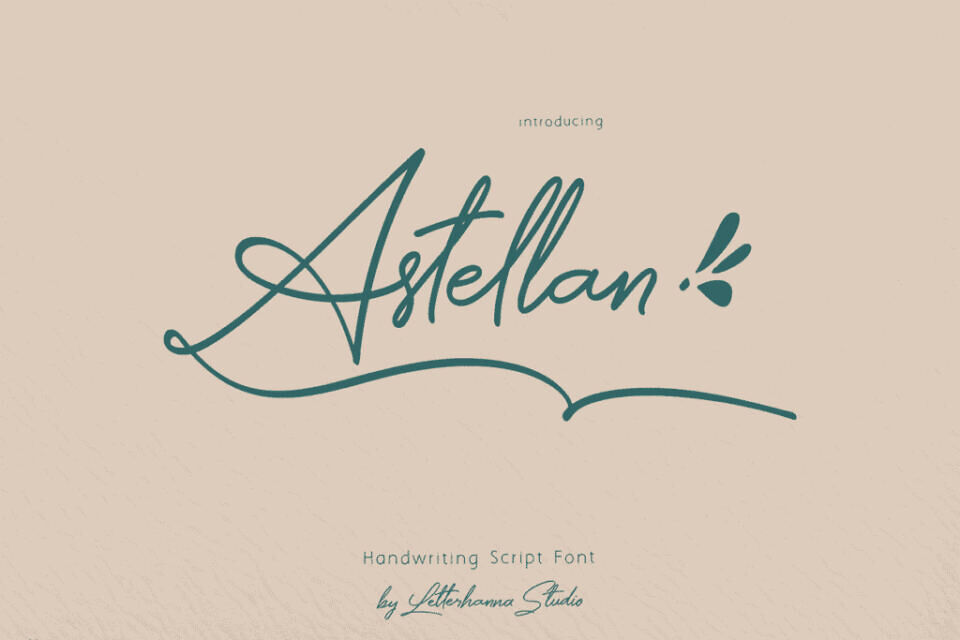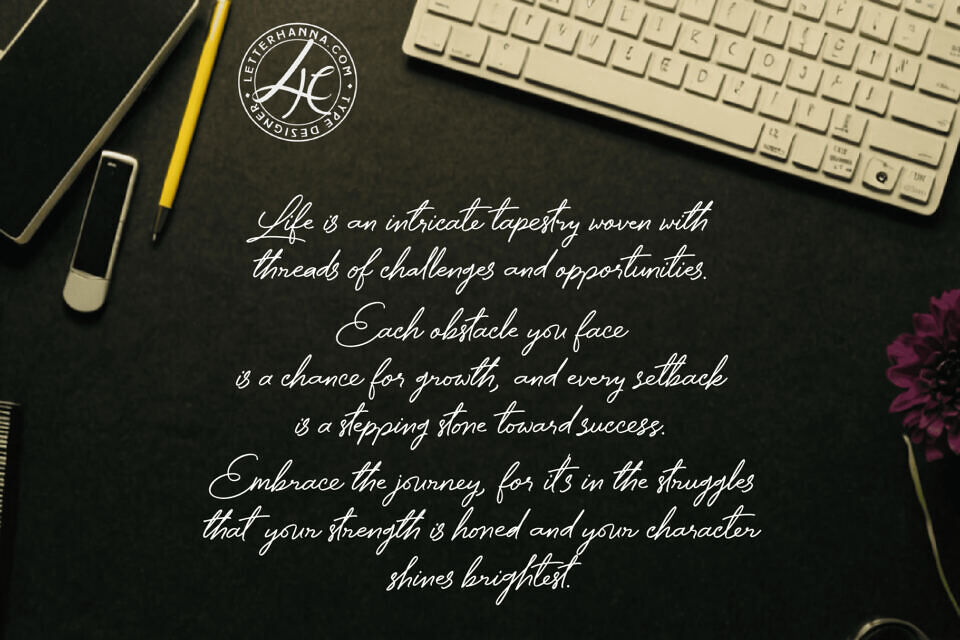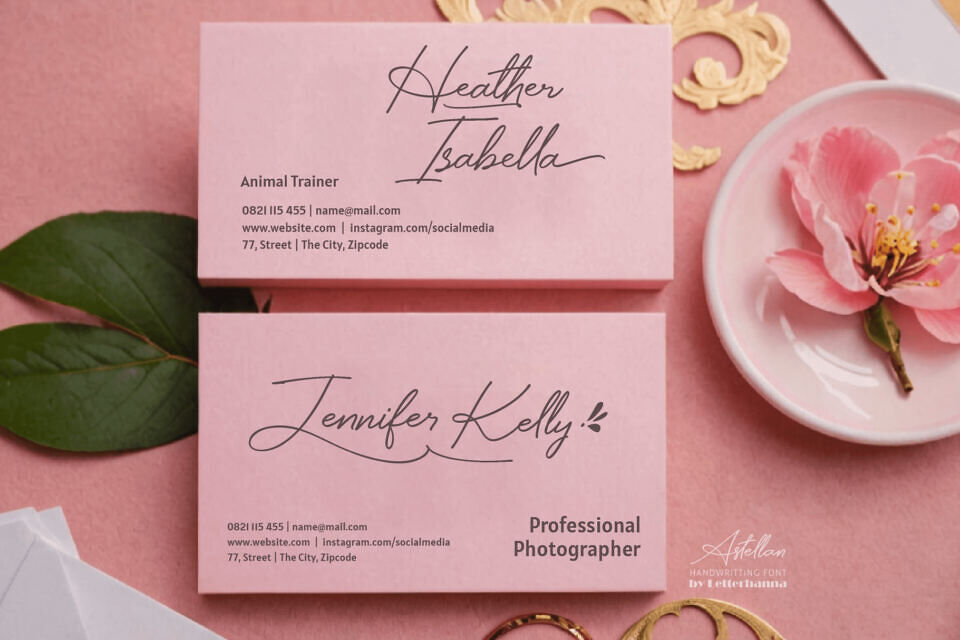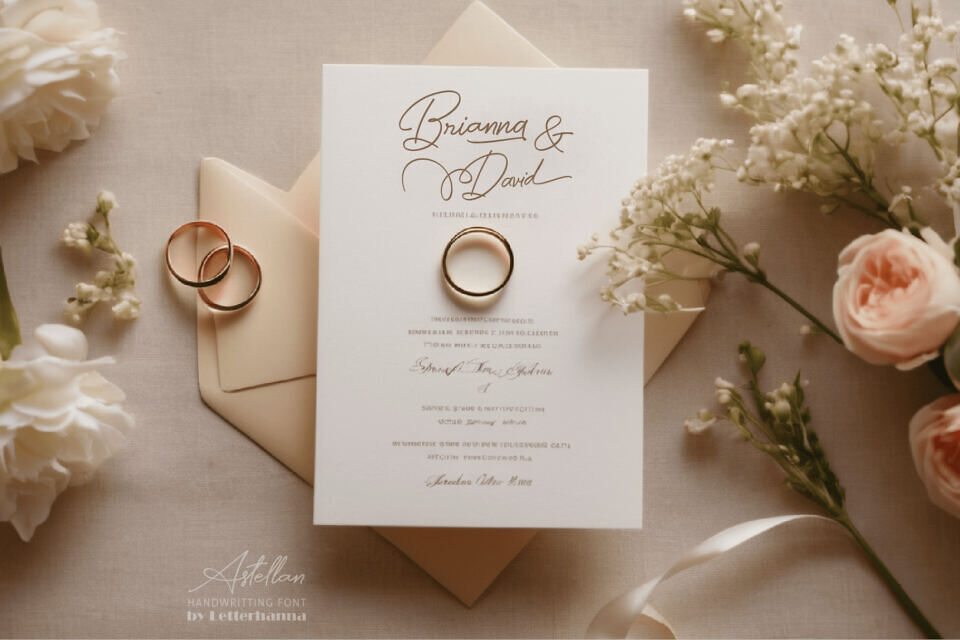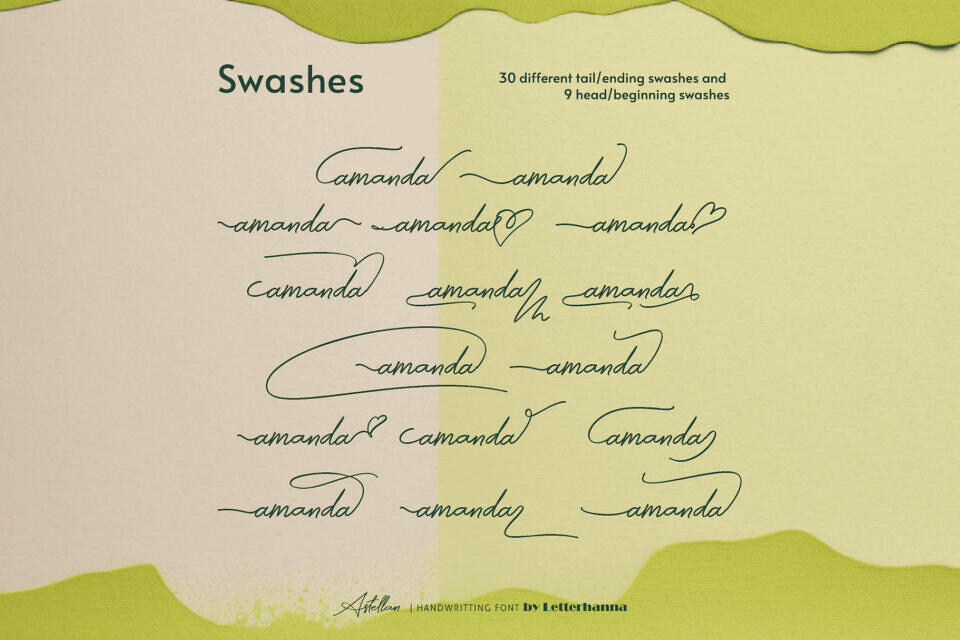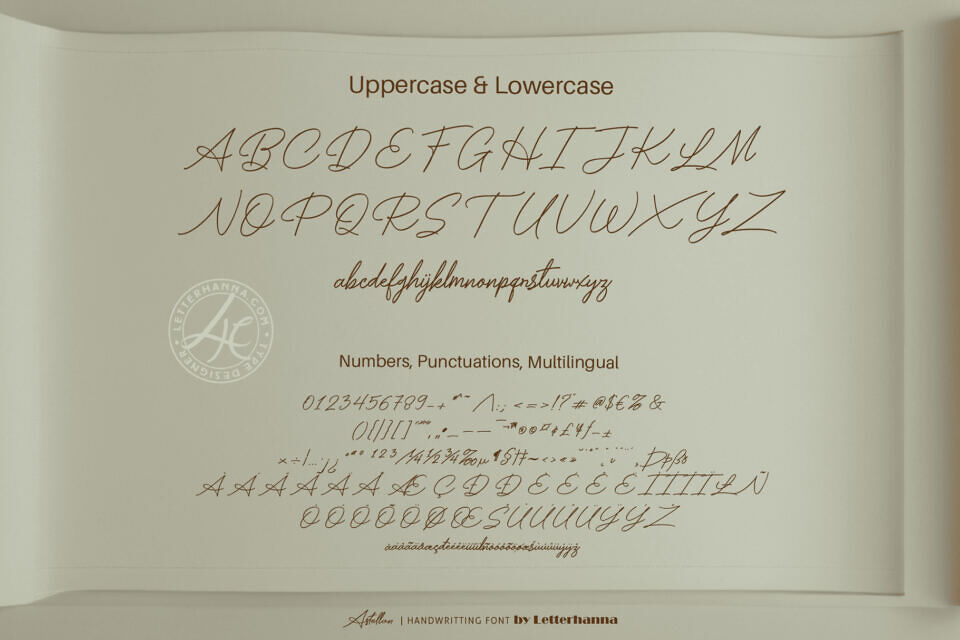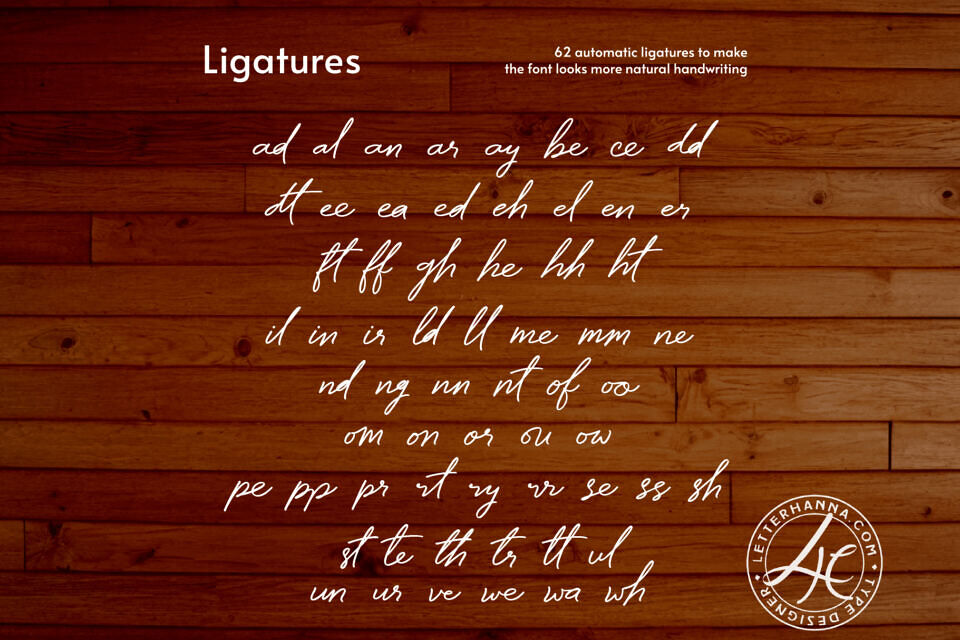
Introduce a touch of elegance and personality to your writing with Astellan, our newest signature handwritten script font. Inspired by the power of storytelling, Astellan’s graceful curves and subtle variations capture the essence of heartfelt expression.
Effortlessly enhance invitations, quotes, branding materials, and creative projects with Astellan’s undeniable charm. Each letter dances across the page, mimicking the natural flow of penmanship, adding a touch of authenticity to your work.
Astellan is perfect for Crafting heartfelt letters and invitations, Adding a personal touch to branding materials, Creating captivating quotes and social media graphics, Expressing yourself in creative writing projects.